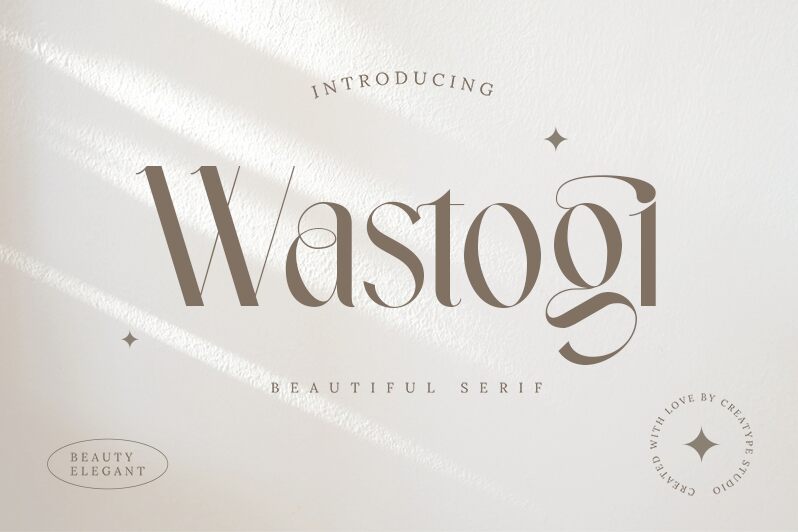
Wastogi
Wastogi font by Creatype Studio is a condensed serif font exploring elegance, modernism, sophistication, and style. The letters’ width makes it suitable for titles and exceptional headings while maintaining clean body texts. Providing a classic artistic flair with high contrast decorative elements the font becomes eye candy to those who lay eyes on it.
Use Wastogi in branding projects such as logos, business cards, advertisements of products like wine bottles and perfumes. Other areas of usage include magazines covers and subheadings, greetings cards and wishes ornaments on posters or banners of events like dances or weddings.